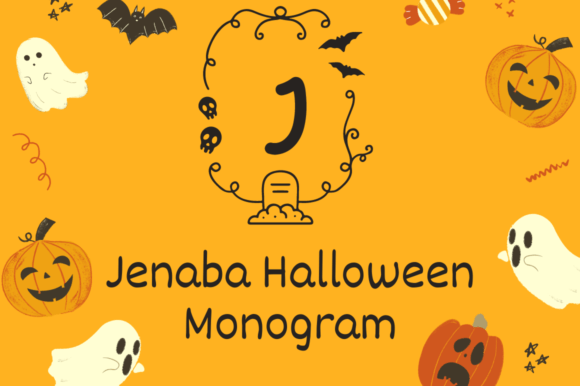
Embark on a spine-tingling journey with Jenaba Halloween Monogram, a hauntingly beautiful decorative font that will cast a spell on your Halloween designs. Each monogram letter is meticulously crafted with a mischievous spirit, conjuring the essence of the spooky season.
Unleash your creativity and let your imagination soar as you use Jenaba Halloween Monogram to summon eye-catching t-shirts, posters, and party invitations. The font's enchanting curves and eerie details will transport your designs to a realm of mystery and enchantment.
Picture this: your audience hypnotized by the spellbinding posters, their hearts racing with anticipation for the upcoming Halloween festivities. Or envision mugs adorned with these whimsical letters, radiating a warm and festive glow in every sip.
With Jenaba Halloween Monogram, the possibilities are endless. Allow its enchanting embrace to guide you as you create designs that will send shivers down the spines of all who behold them.
"Jenaba Halloween Monogram is a font that's both haunting and captivating. It has added a touch of spooky elegance to my Halloween-themed designs." - Sarah, Graphic Designer
"I love how playful and versatile Jenaba Halloween Monogram is. It's perfect for adding a touch of whimsy to any Halloween project." - Emily, Crafter